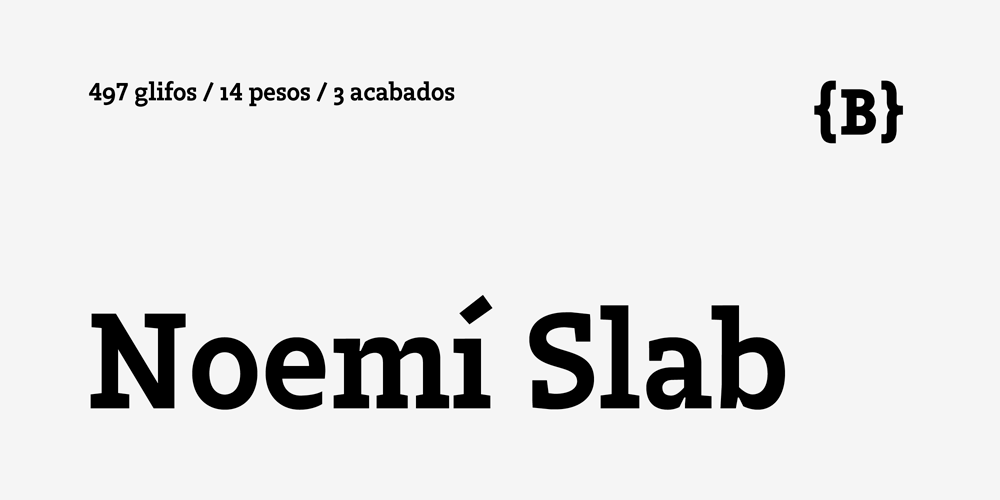
Noemi Slab Font Family was designed by Jose Antonio Jiménez Macías and published by Brackets. Noemi Slab contains 14 styles and family package options. Noemí is a broad typeface based on a formally classic skeleton, but with a strong Meccano character, where its quadrangular serifs are the protagonists of the slab style. It is a typeface designed to solve the basic problems of newspaper printing, adapted to a novel and strong communication, in the case of a wide typeface and with generous ink traps making the impression.Noemí was born from the need to create a broad, functional typeface family with a strong compact character intended for use in the press. Intended for editing and layout in a newspaper / magazine with a wide range of subfamilies thought and designed to achieve a diverse graphic functionality; designed from the same common skeleton, with a style based on the mix between the Mecan characters of traditional typewriter fonts and Roman fonts.